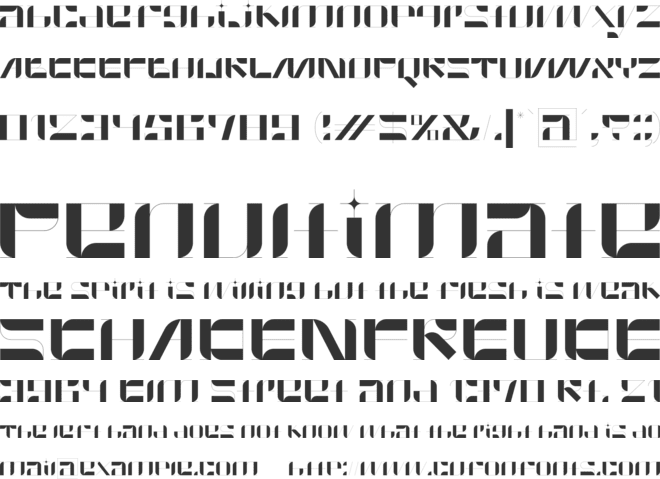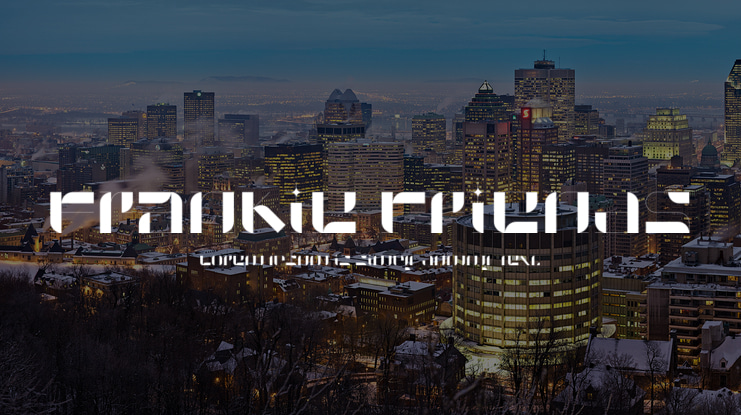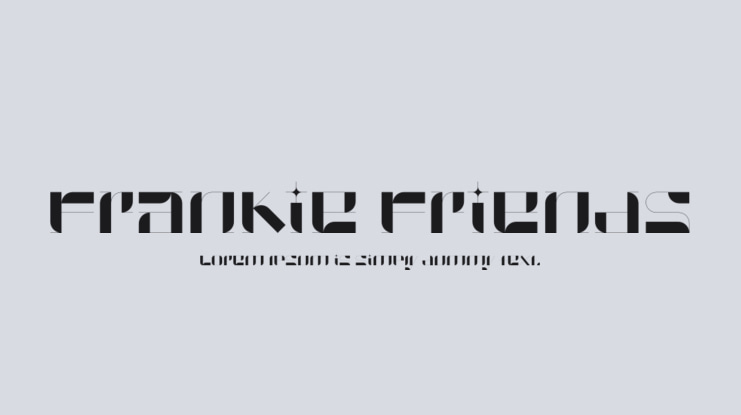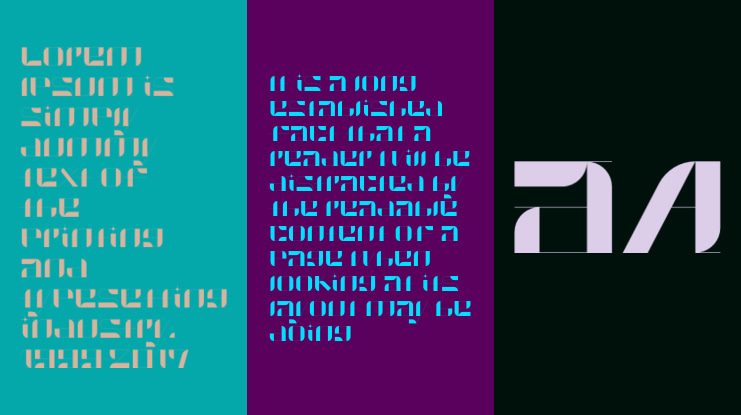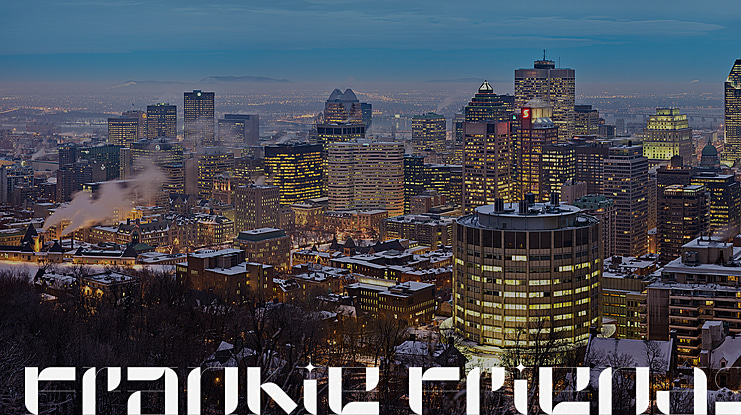
Frankie Friends Font
This is a unique display typeface with bold and thin in one font. Basically, it is a modified sans serif font, with some letters being thick and some being thin, resulting in a unique blend in one sentence. It is suitable for modern and clean designs. To support the design of a magazine or website cover will also be very suitable.